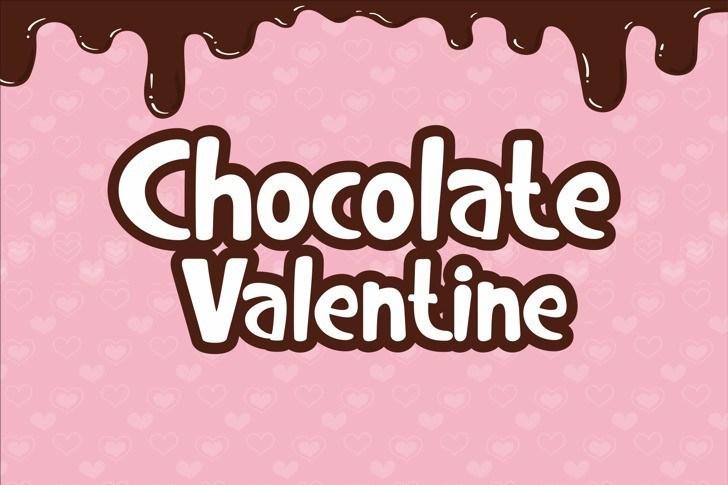
Chocolate Valentine Font
Your Chocolate Valentine is a display font is perfect when you want to write those cute love notes or letters.
Chocolate Valentine is the perfect font to celebrate the important feelings of your heart in advertising and web design, packaging and poster design.